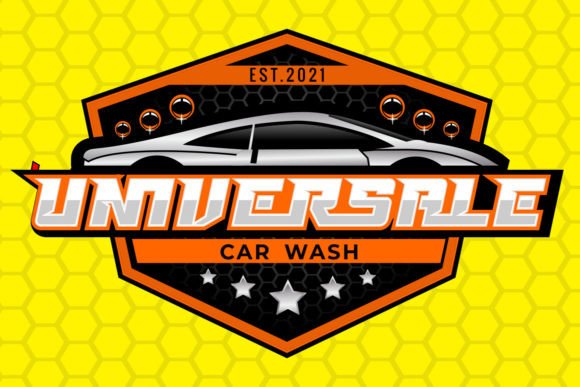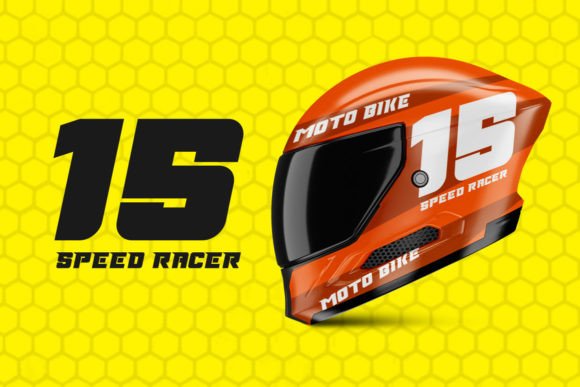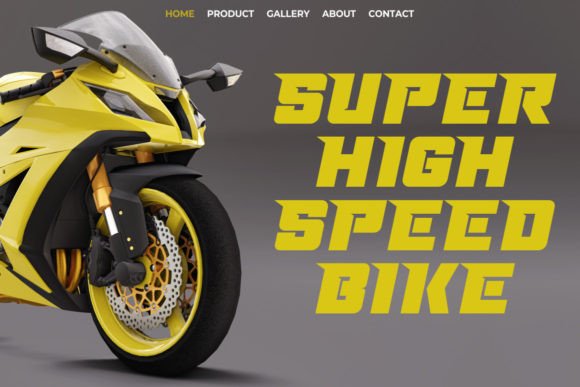
About the Rock Road Font
Crafted with precision, the Rock Road Font is ready to bring your ideas to life. Rock Road is a racing theme display font with sharp and consistent angles. Its powerful and bold personality is perfect for all your projects that need to make an impact! This font is PUA encoded which means you can access all the glypsh and ligatures with ease!
Rock Road’s aggressive geometry makes it ideal for headlines, posters, and branding projects requiring a powerful, high-impact statement. It excels in short, punchy text applications where its bold personality shines. However, its strong forms are less suitable for body copy or UI elements; the sharp angles can strain readability in extended text.
Consider pairing Rock Road with a clean sans-serif like Open Sans for a balanced contrast, or a more geometric sans-serif for a cohesive, modern feel. For a touch of refined rebellion, a slightly distressed serif could offer an intriguing juxtaposition. Avoid pairing it with overly decorative or script fonts which would clash with its strong, angular features.
The overall feel is bold and rebellious, projecting speed and energy—perfect for brands in automotive, sports, or gaming.